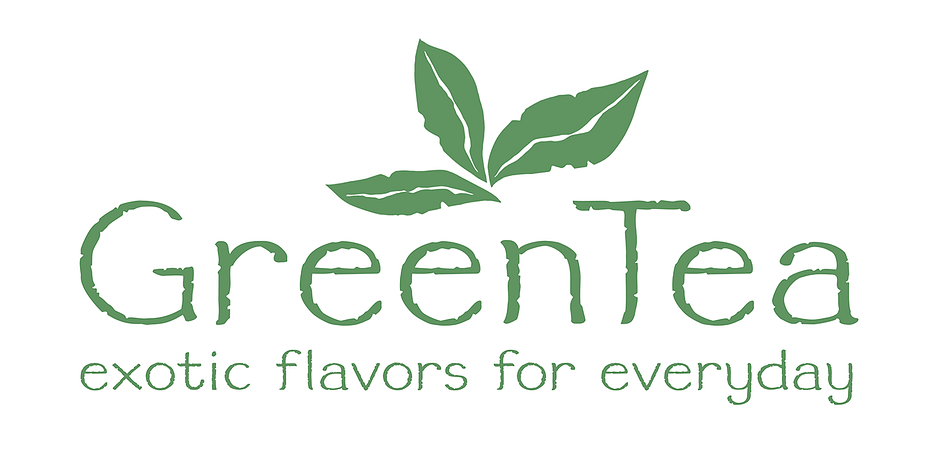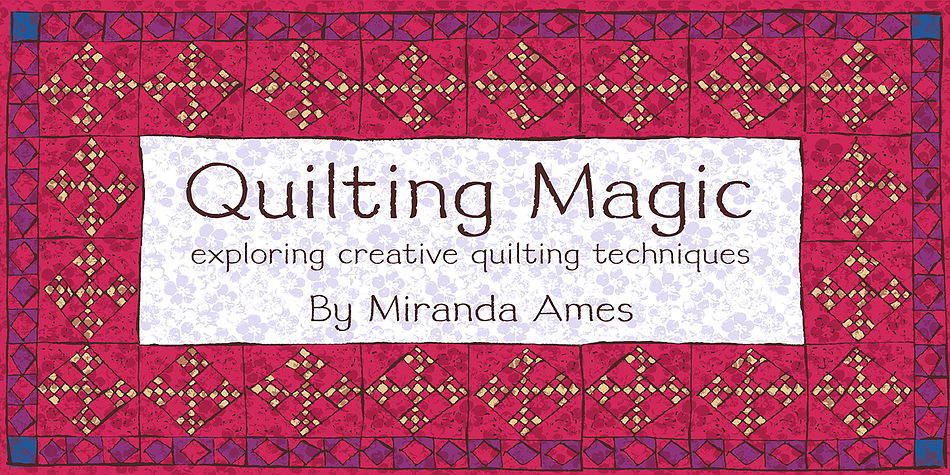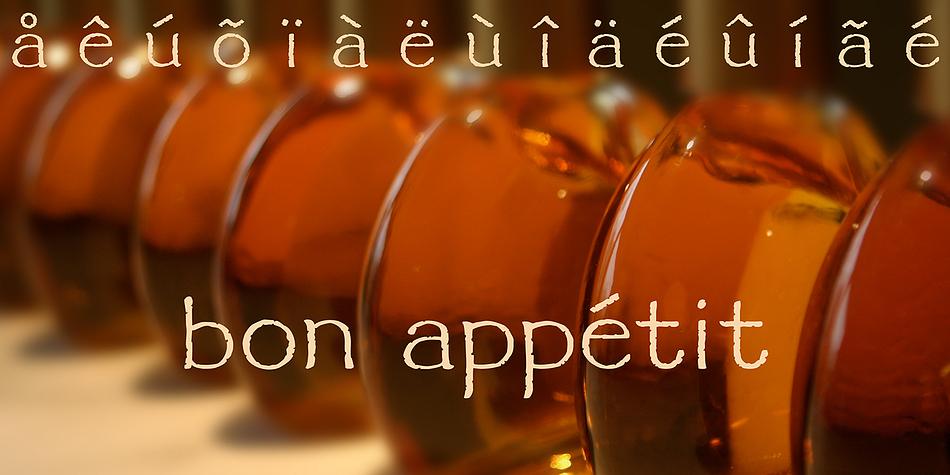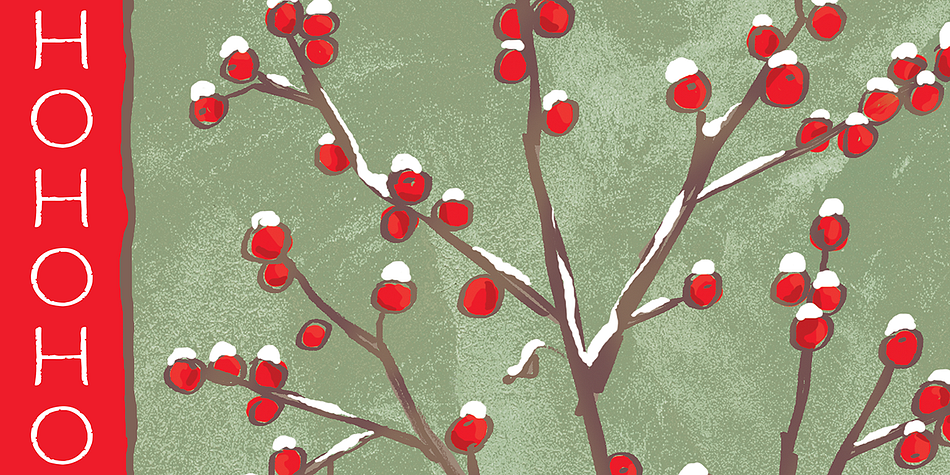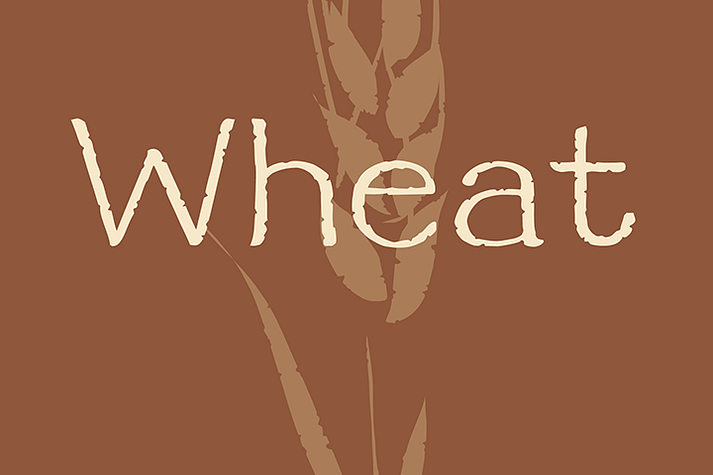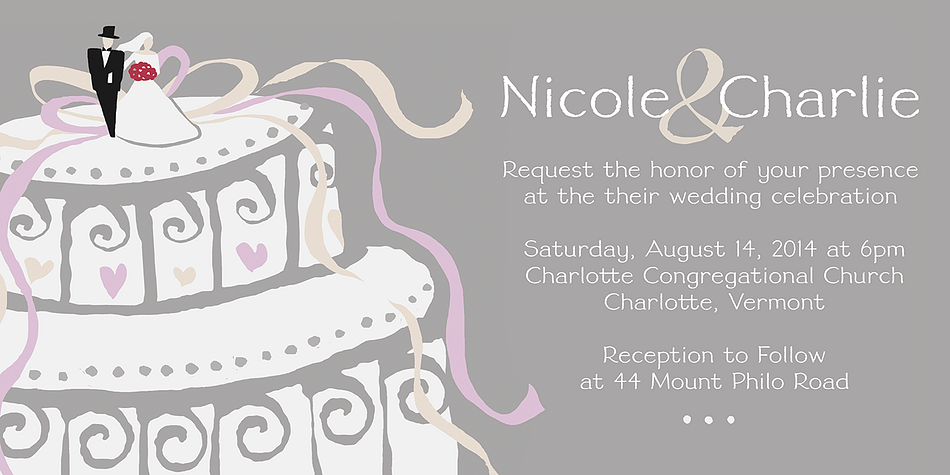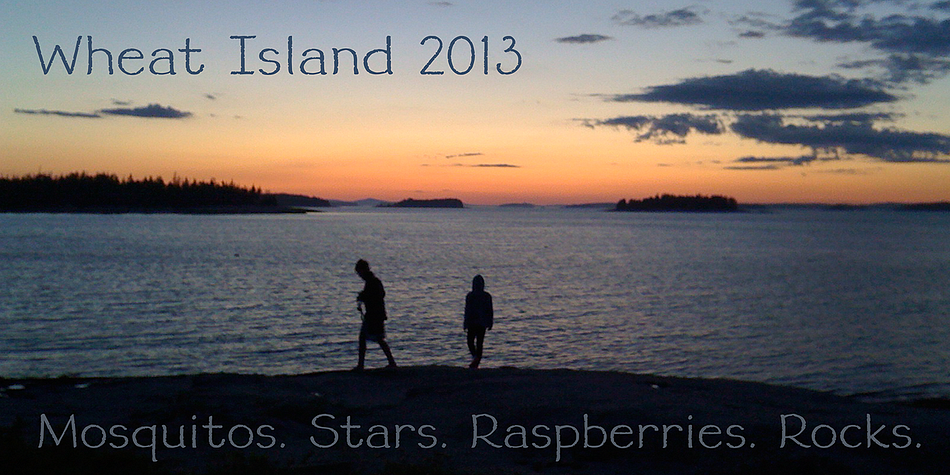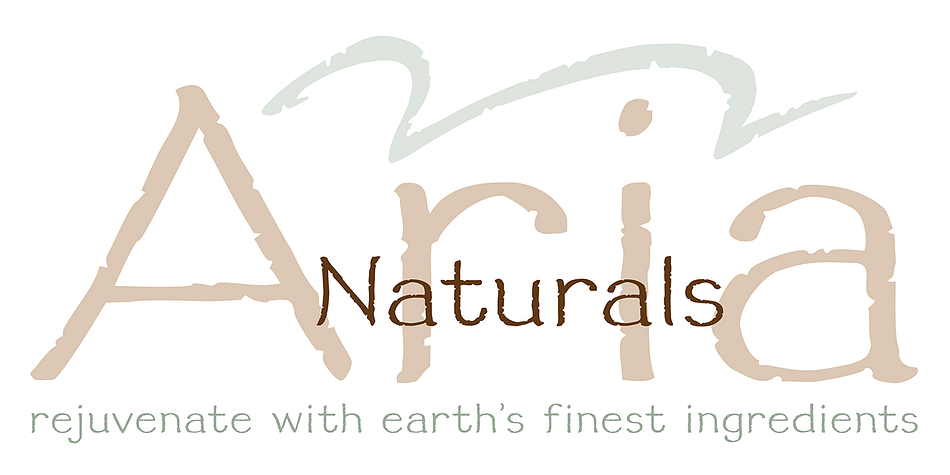
Designed by Amy Dietrich, Wheat is a display font published by Atlantic Fonts.
Like fresh, warm just-out-of-the-oven bread, Wheat is wholesome and comforting. Wheat’s crusty texture and bubbly, hand-drawn letters give it all-natural appeal.
Foundry | Atlantic Fonts |
Designer | Amy Dietrich |